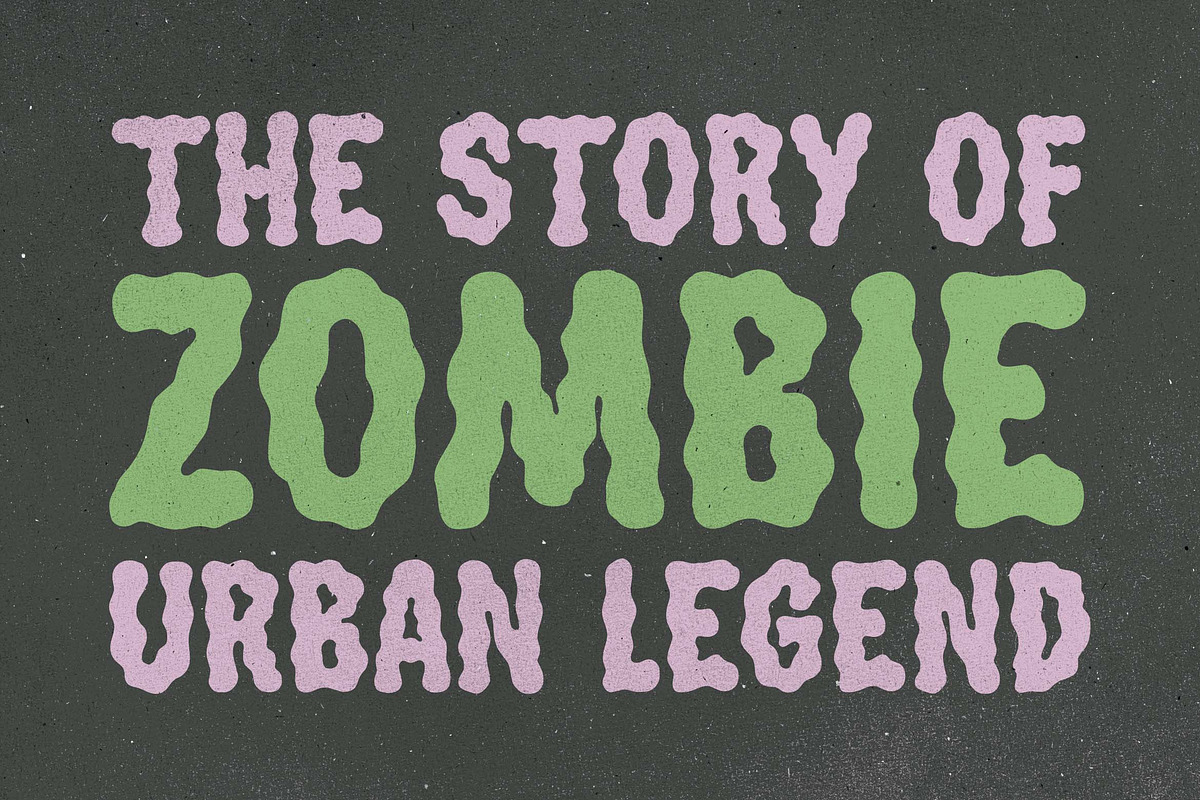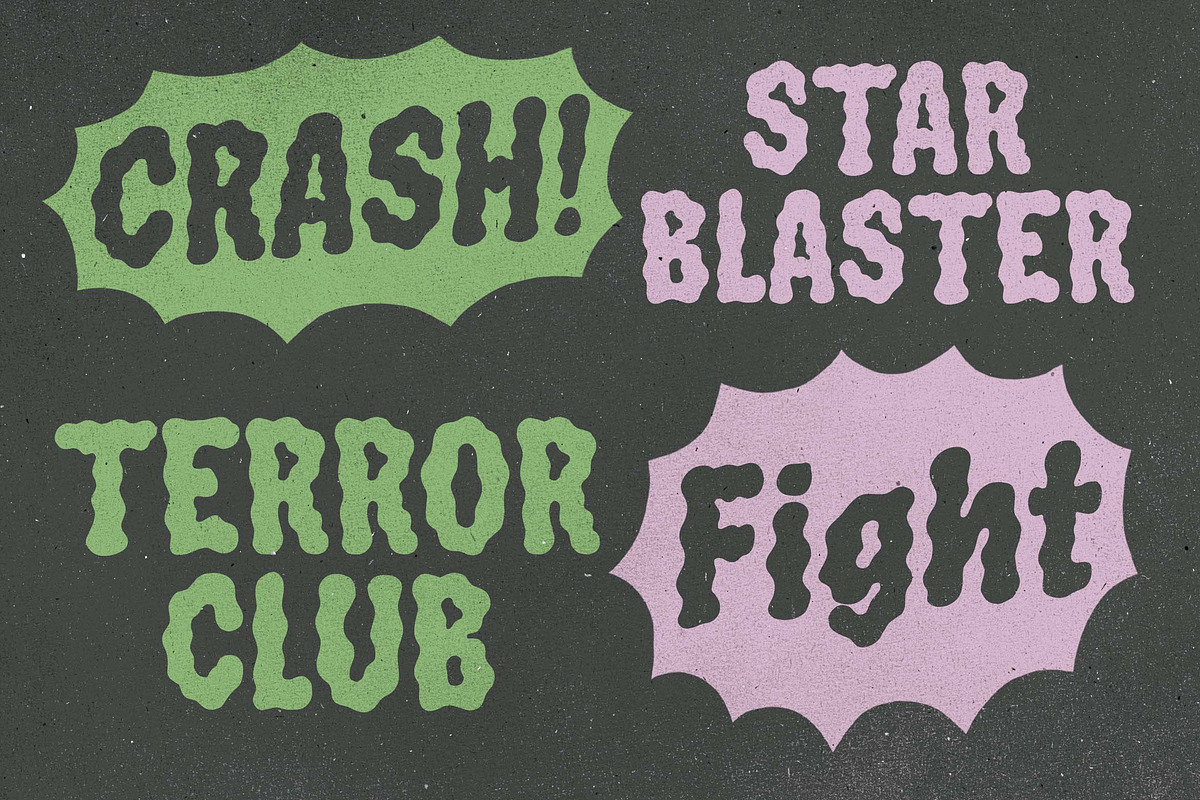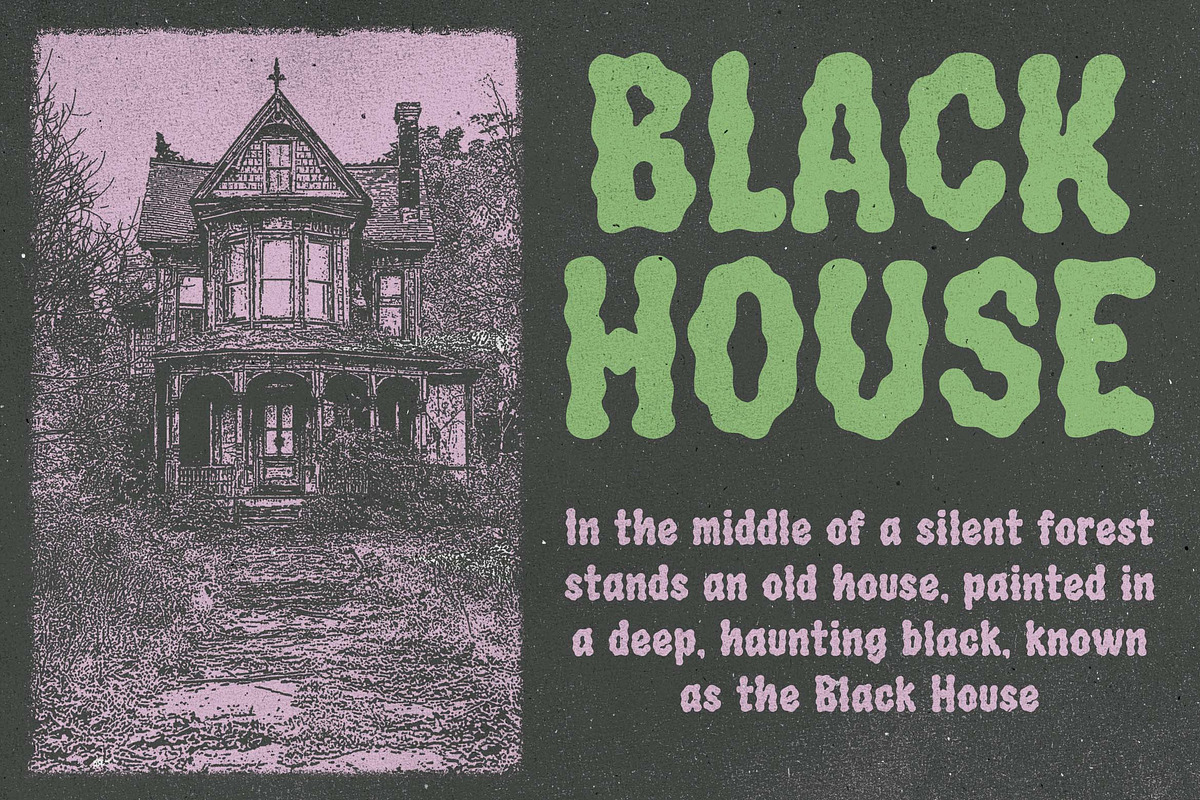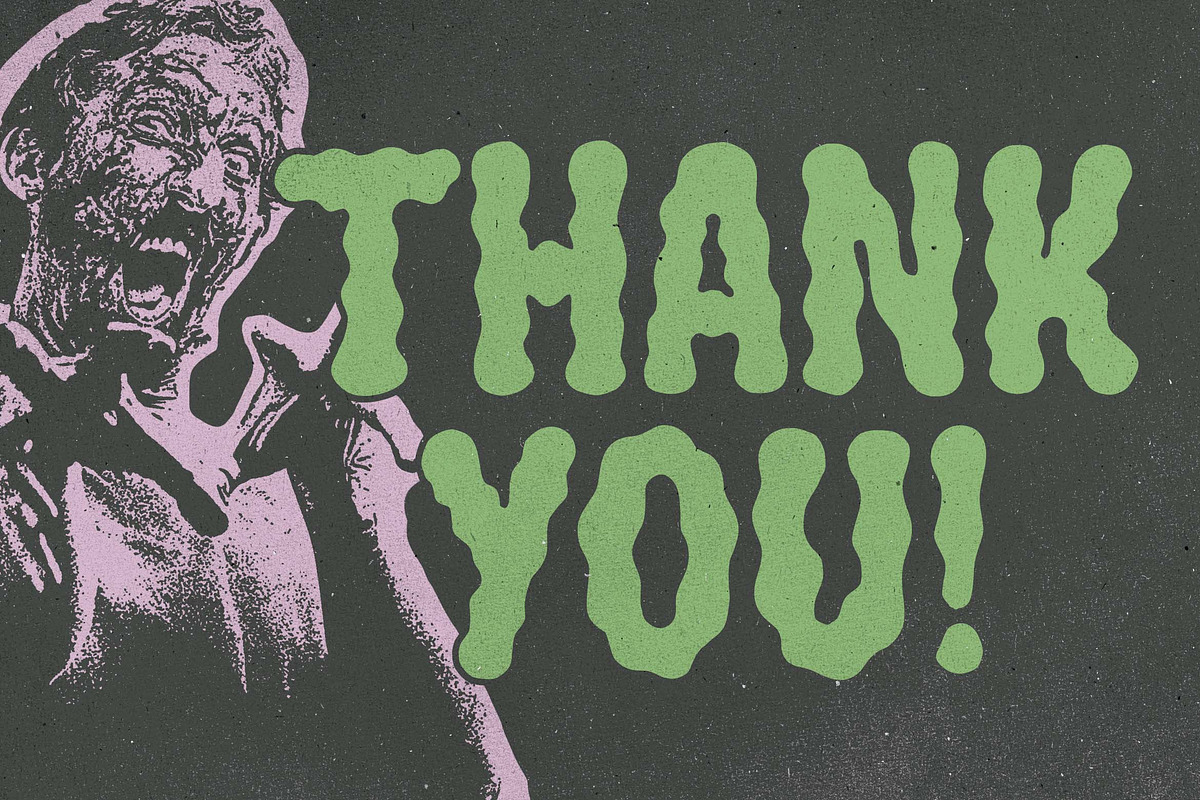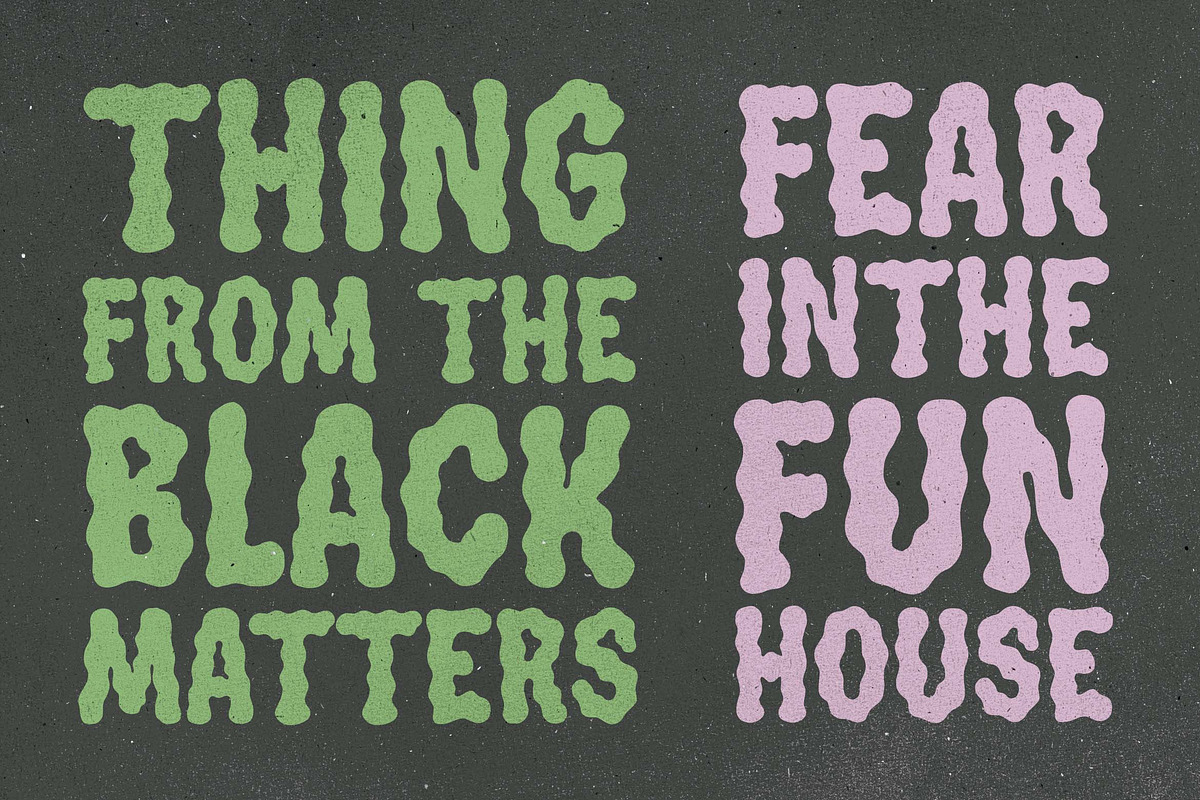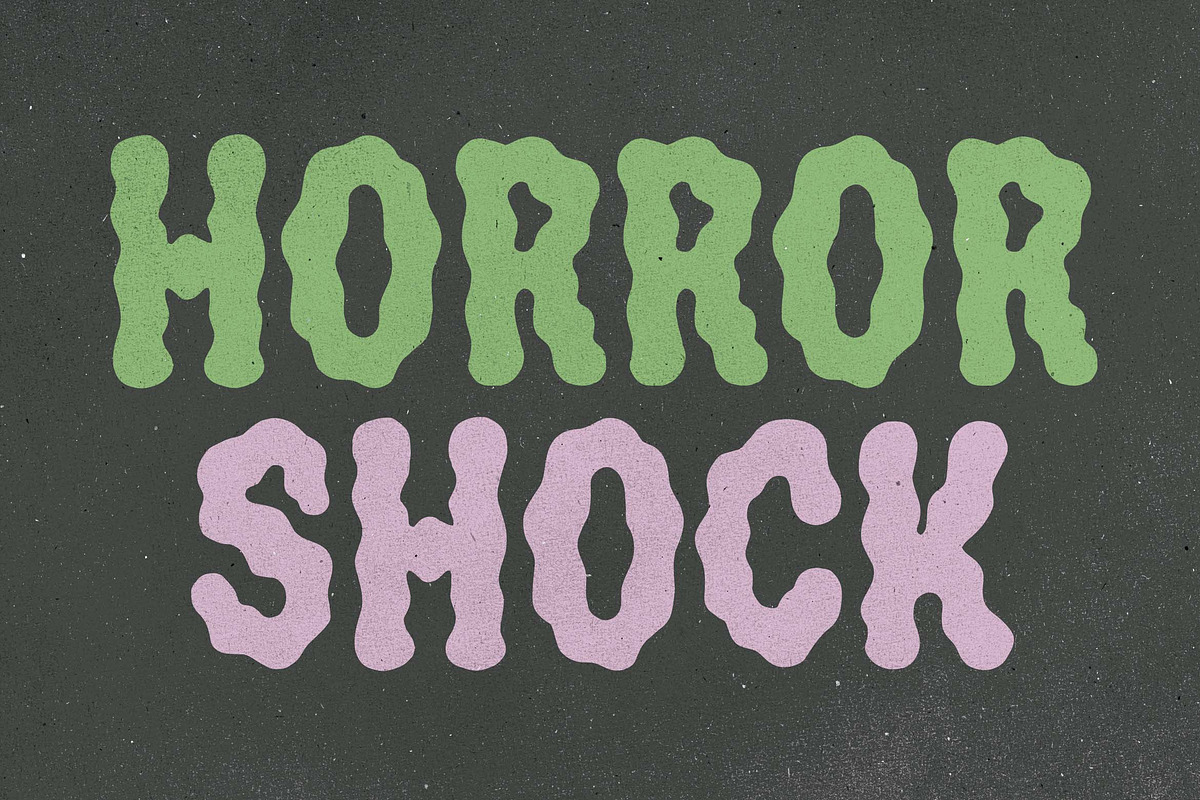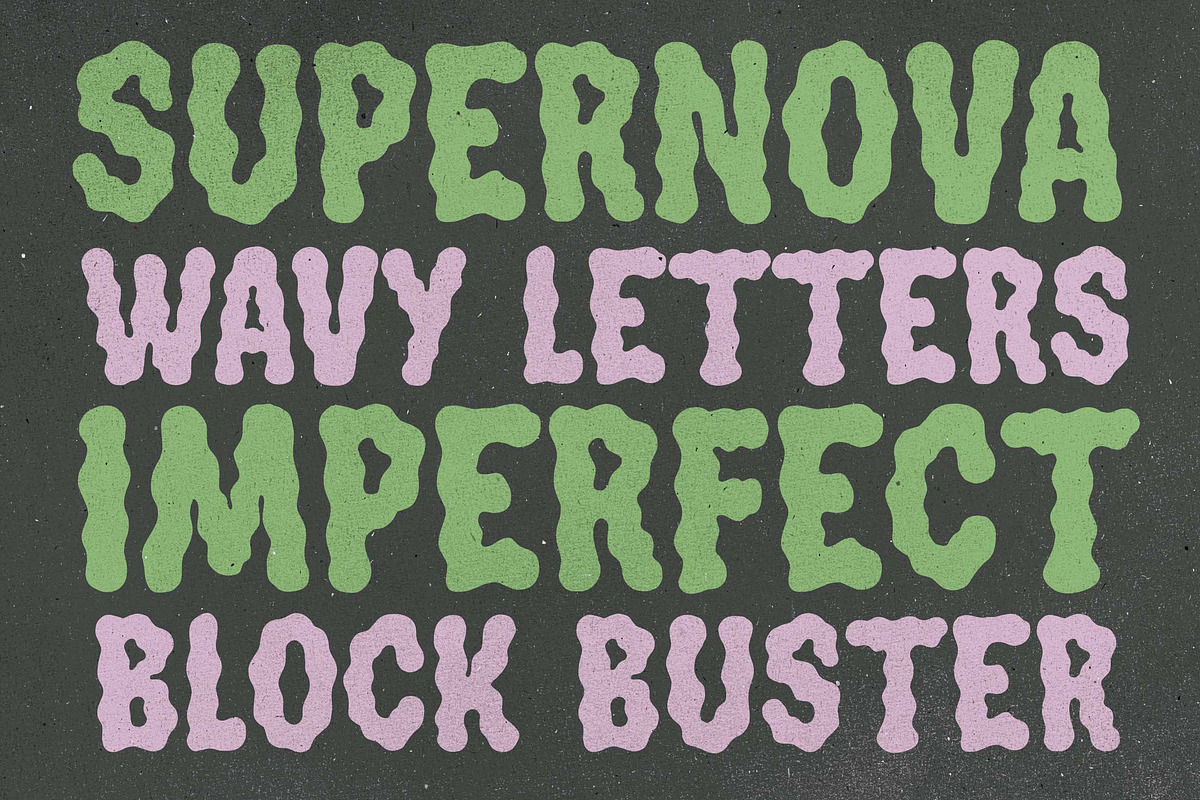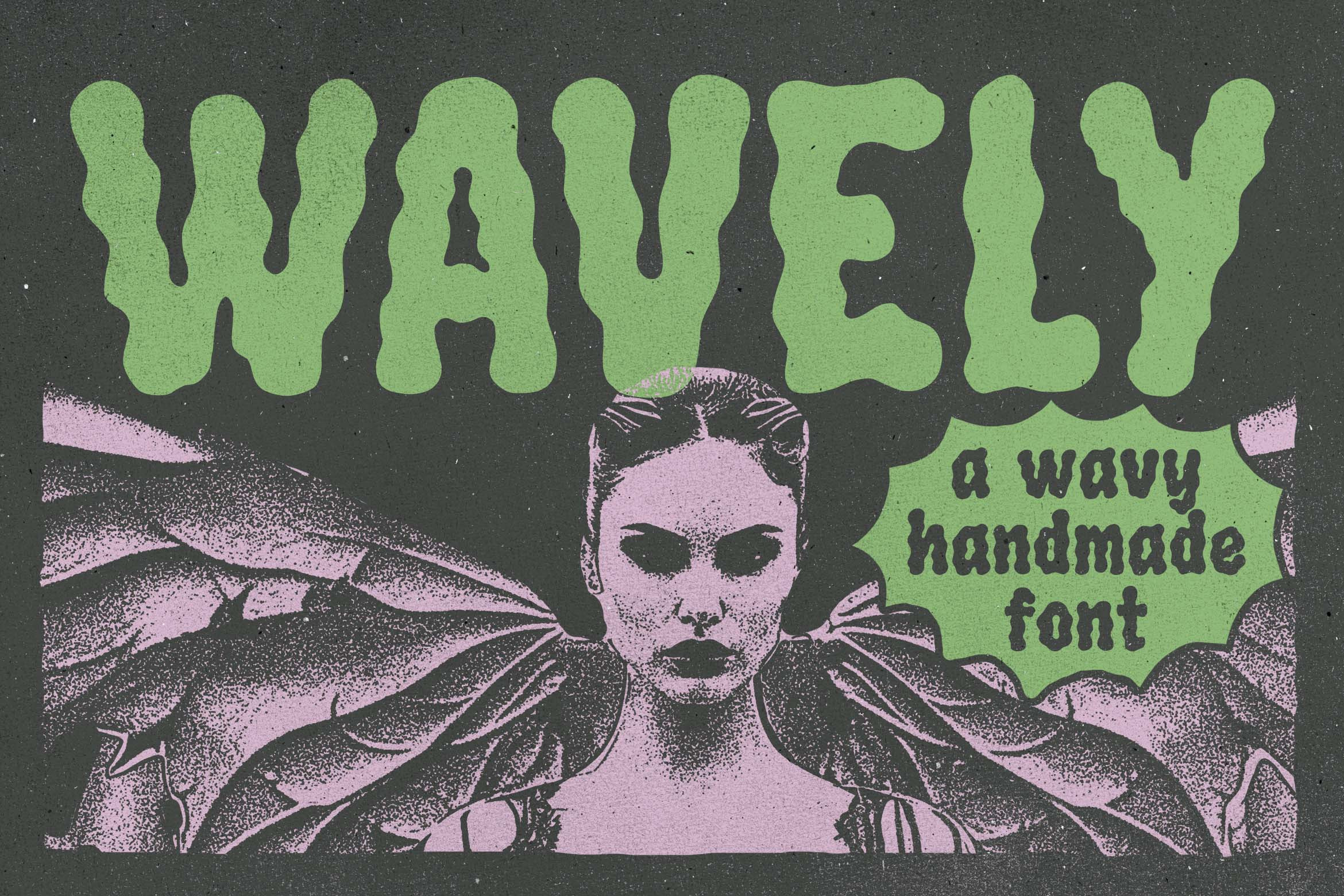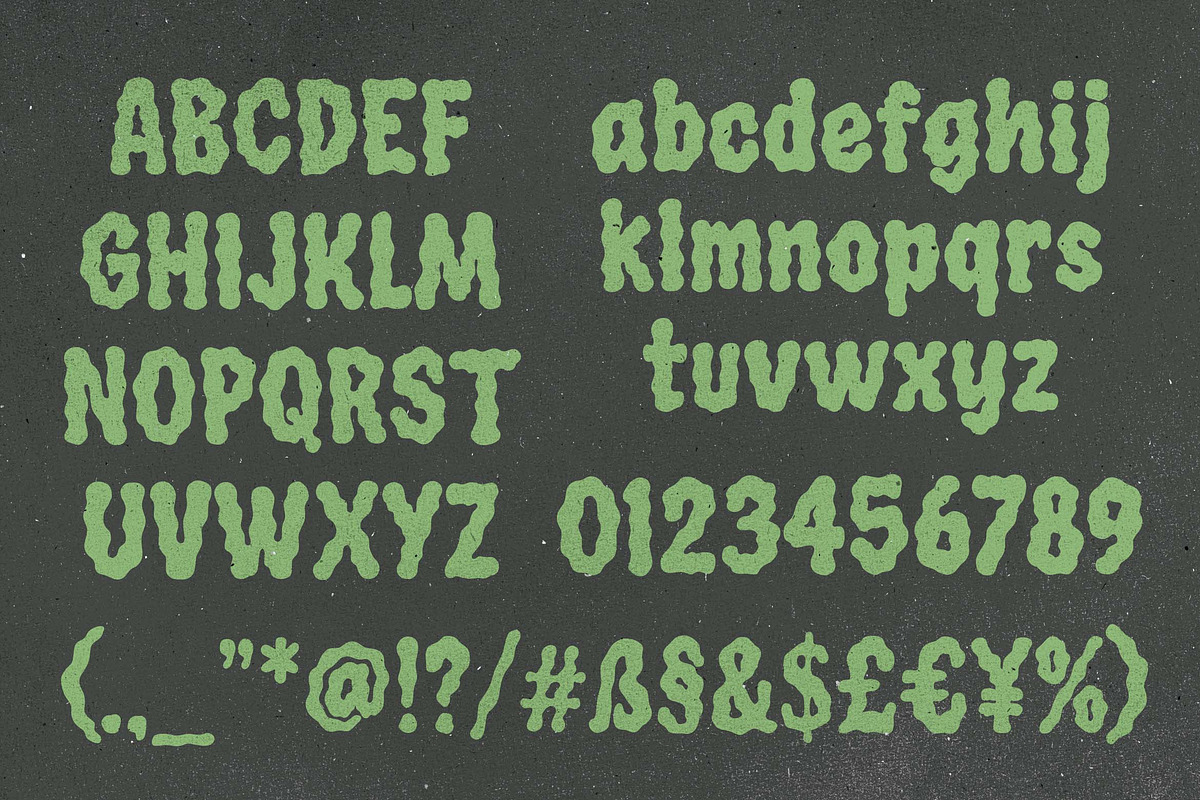
Wavely a Wavy Handmade Font
Hello, awesome people! This time, we have a new font called Wavely a wavy handmade font by Blankids Studio.
Wavely a wavy handmade font is made for any professional project branding, such as logotype, watermarks, poster, branding, promotions, product packaging, etc. Every letter has a vintage horror style design. This font comes in Otf. and Ttf. files.
Wavely font includes a full set of vintage horror uppercase and lowercase letters, numerals and punctuation. This font has a vintage horror style. See the previews above to get some inspiration on how to use them. Happy designing!